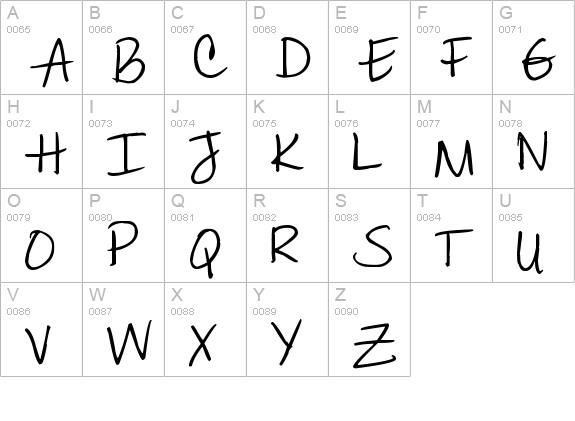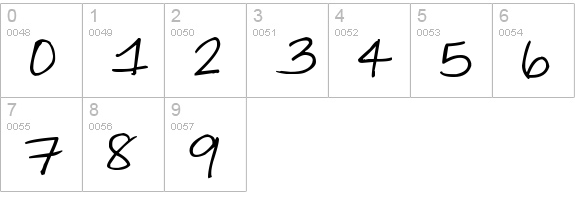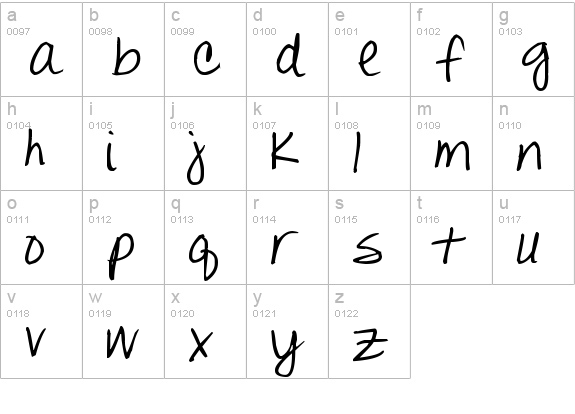
Pea Alesa Font Details
Pea Alesa is a whimsical and charming font that exudes a playful and friendly vibe. With its rounded edges and smooth curves, this font is perfect for adding a touch of personality to your projects. Whether you're designing greeting cards, invitations, or branding materials, Pea Alesa will surely bring a sense of warmth and creativity to your work. The best part about Pea Alesa font is that it is completely free to download at FontsMarket.com. This means you can easily access this delightful font and incorporate it into your designs without any cost. Don't miss out on the opportunity to add a unique and eye-catching element to your creations with Pea Alesa font. Download it today and let your creativity soar!